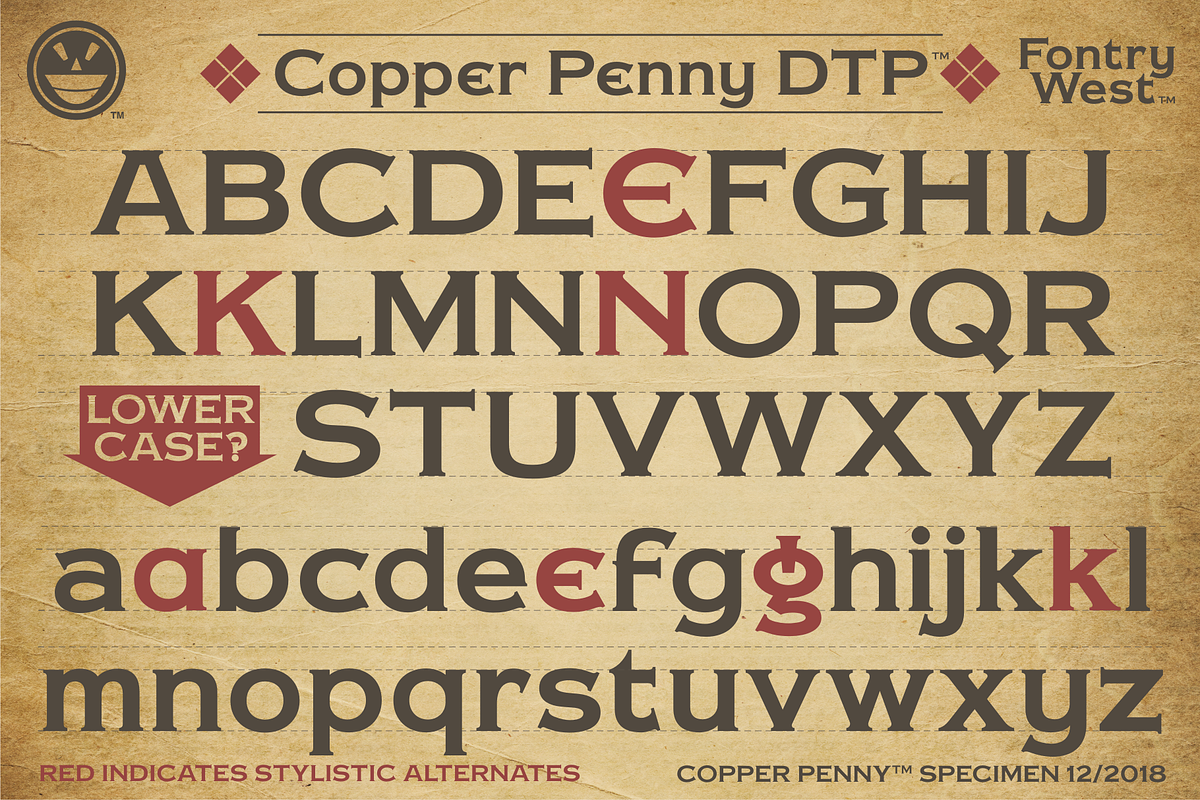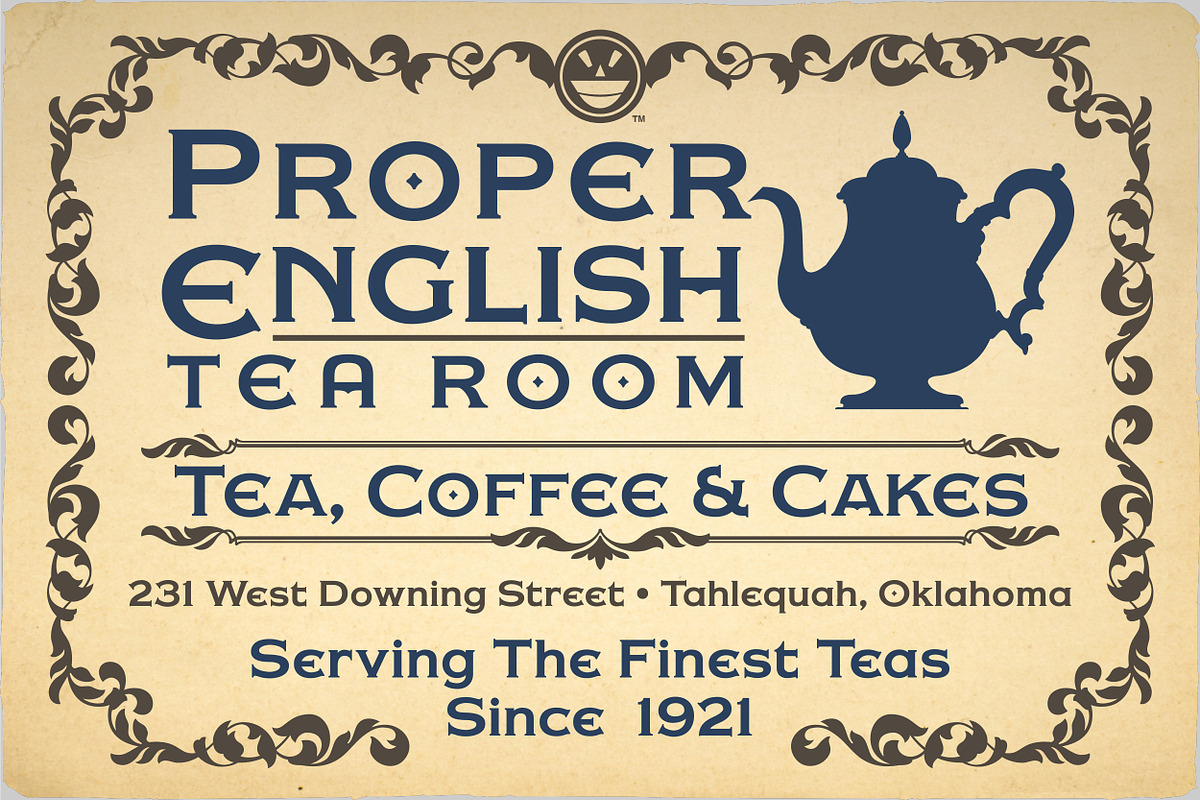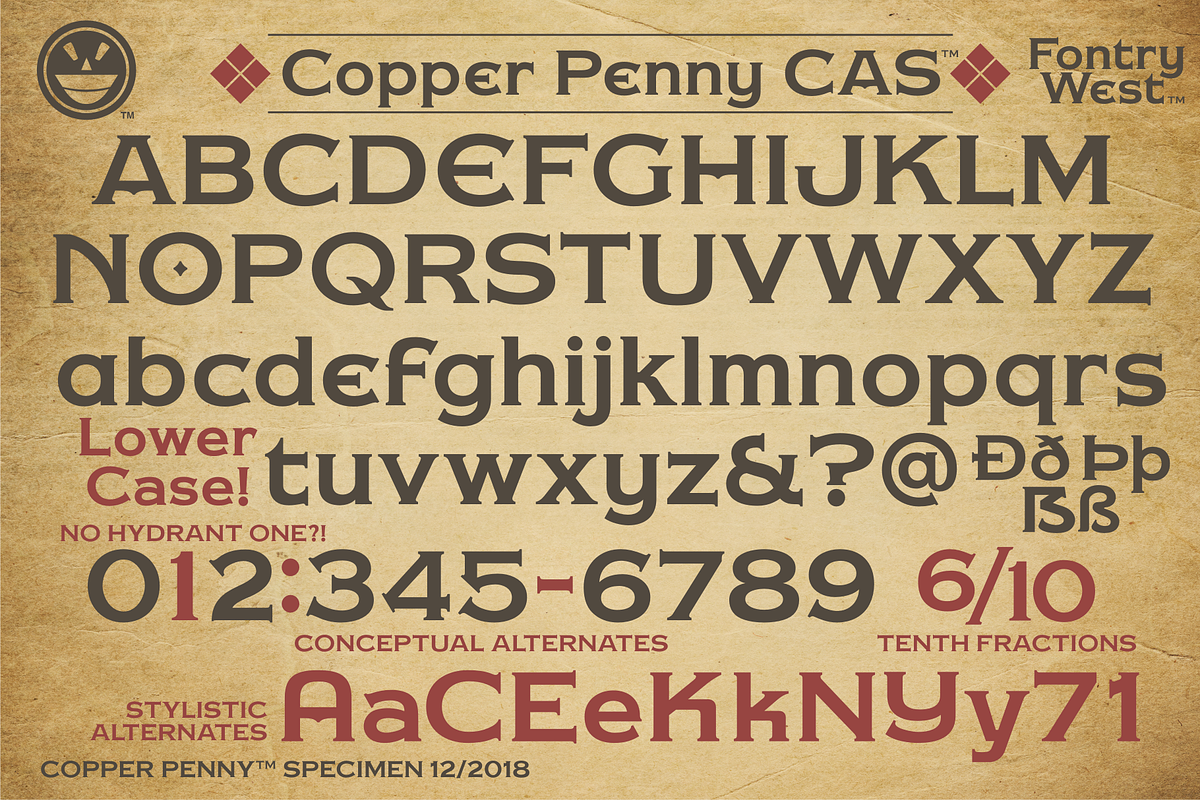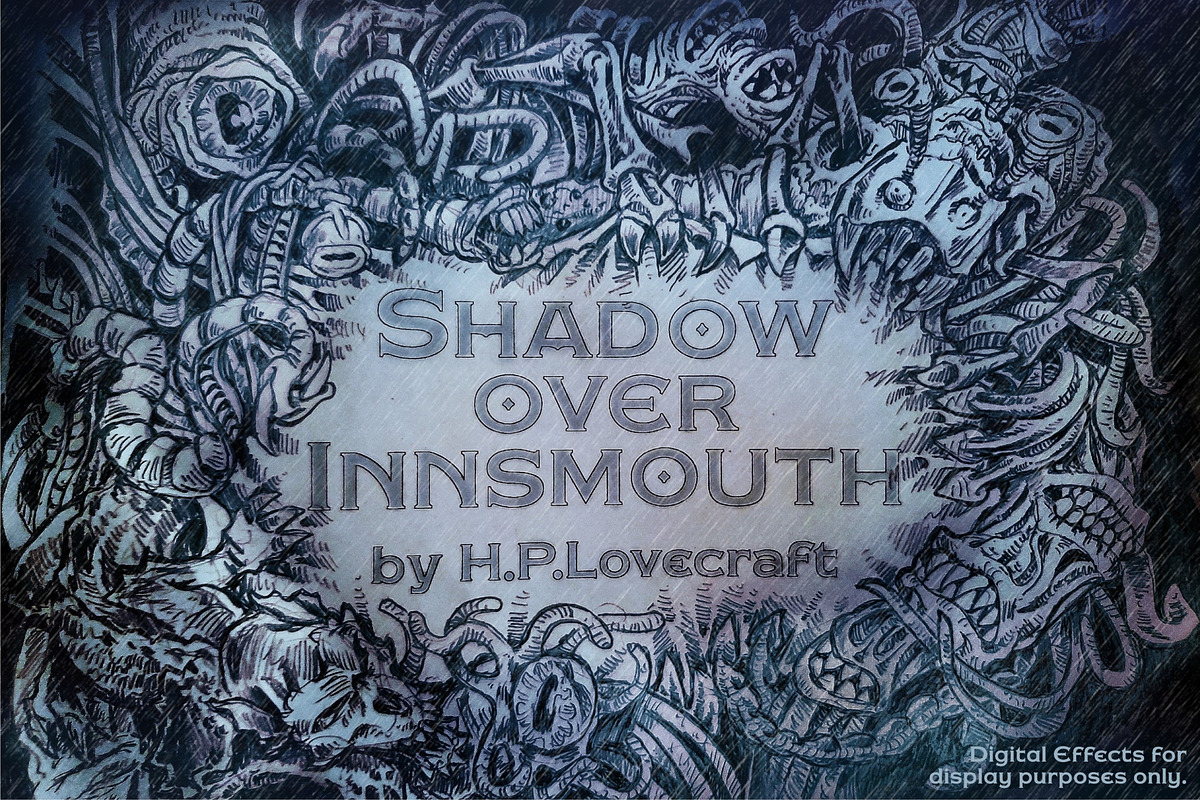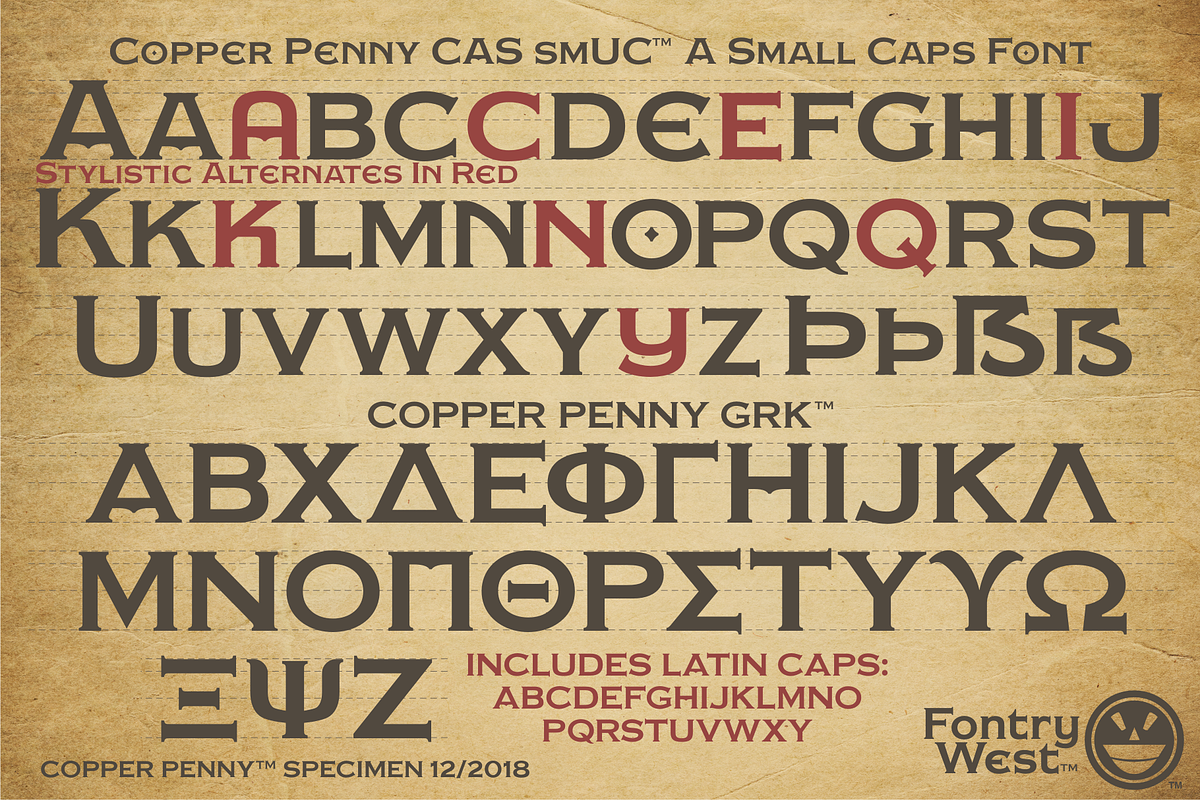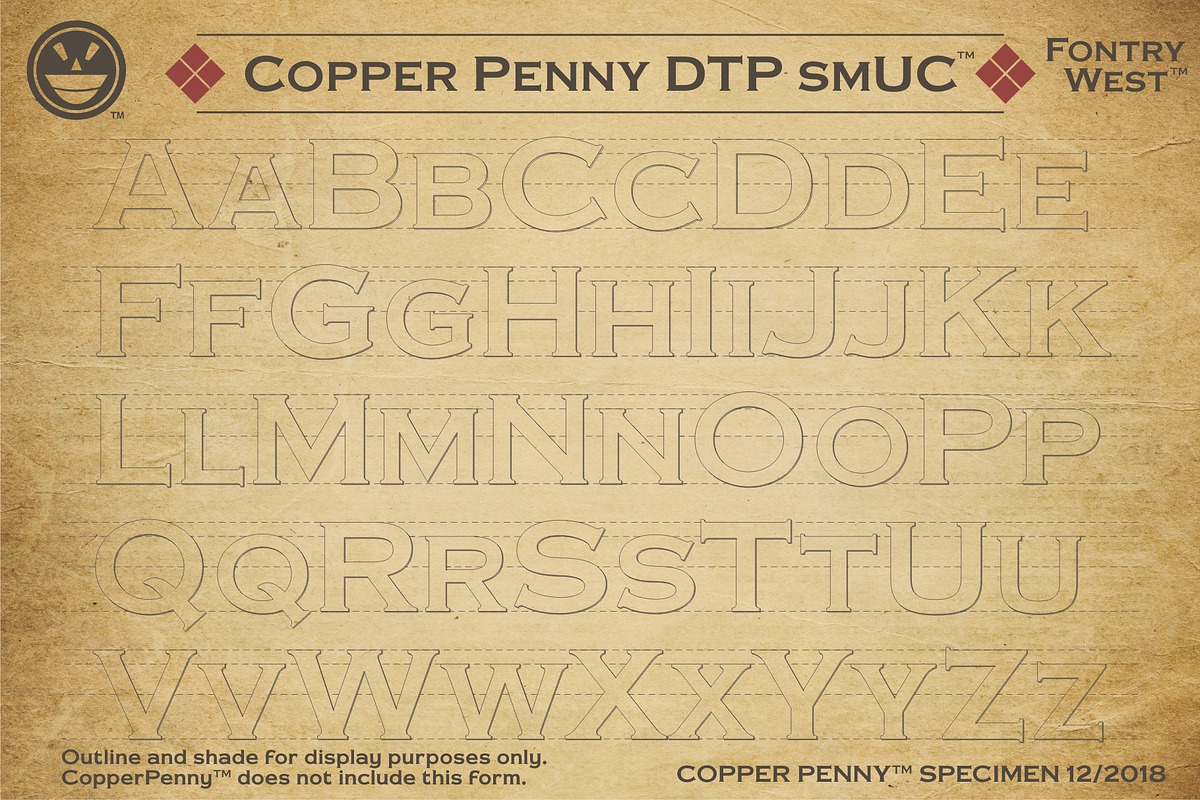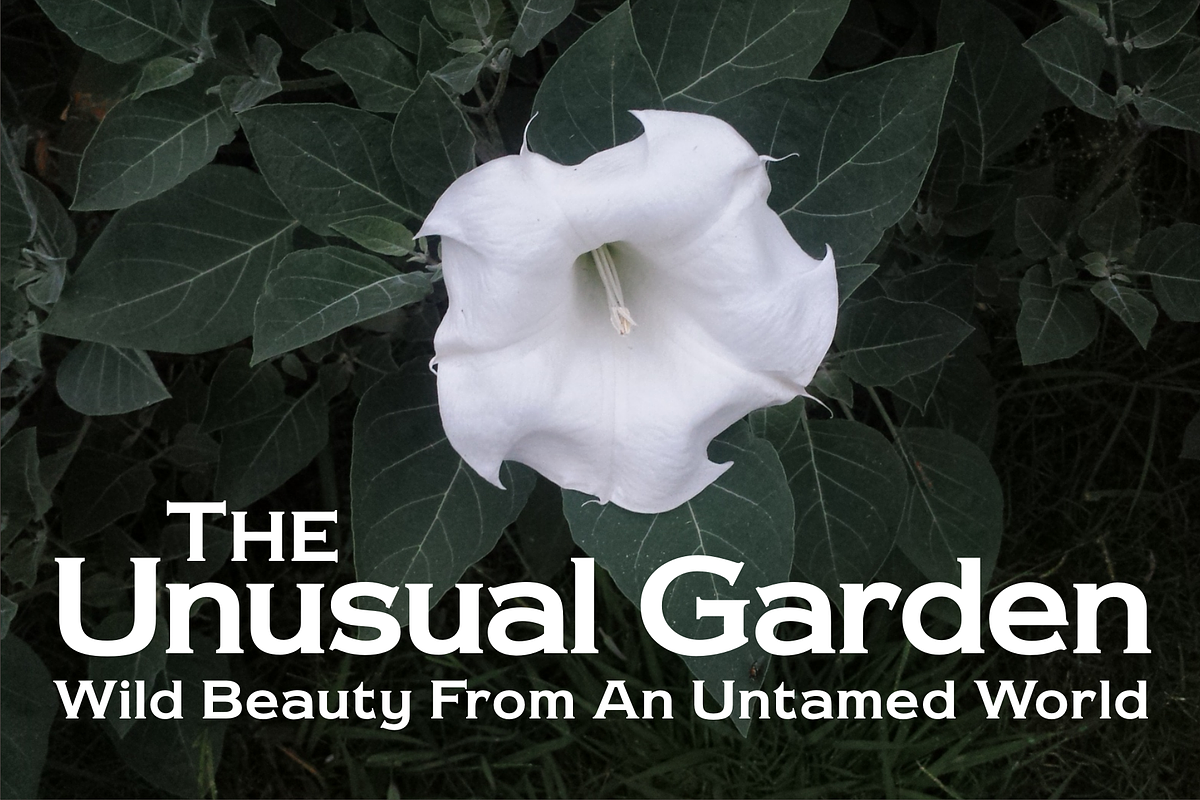
Copper Penny™ Font Collection
Copper Penny™ Collection from Fontry West™
By no means a cheap spinoff of a great original, the Copper Penny family is a completely revamped tribute to Frederic W. Goudy’s venerable Copperplate Gothic. After much attention and care, this freshened-up face takes a century-overdue leap forward, anxious to take on the needs of an ever-changing design world. Even as it serves a dual role in Computer Aided Signmaking (CAS) and Desktop Publishing (DTP), this family is also brimming with an extensive range of alternates, plus a set of small uppercase characters for that traditional look, and lastly and most welcome, a viable lowercase that pays clear homage to its classic roots.
This is a collection filled with changes and options, from the subtle to the radical, even a Greek range for fraternities and sororities, so if you've ever used Copperplate Gothic, then everything about the Copper Penny™ Collection will definitely be worth exploring.
Copper Penny DTP™, the desktop graphics version, the workhorse of your design needs;
Copper Penny DTP smUC™, the traditional small caps version of DTP;
Copper Penny CAS™, designed with some unconventional character forms, contextual alternate colons and hyphens for numbers, and 16th fractions;
Copper Penny CAS smUC™, the small caps version of CAS;
Copper Penny GRK™, Latin and Greek capitals for the fraternity ans sorority crowd.
Languages Etc.:The four main faces of Copper Penny™ support the standard Western range. The collection also includes Latin A, and some of Latin B and Latin Extended. There is also a spicy variety of ligatures and stylistic alternates.